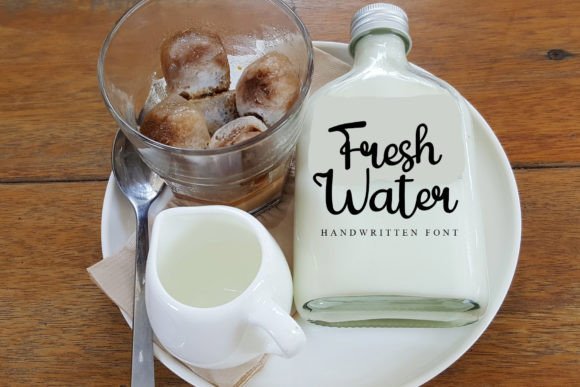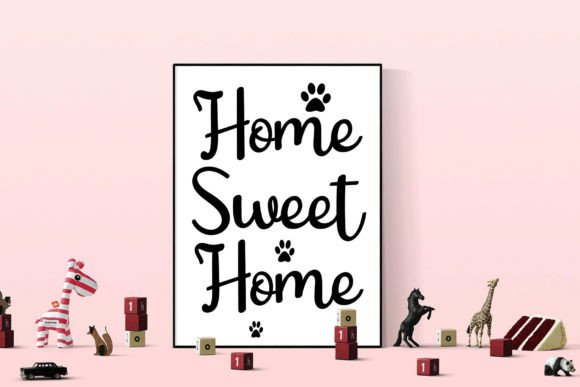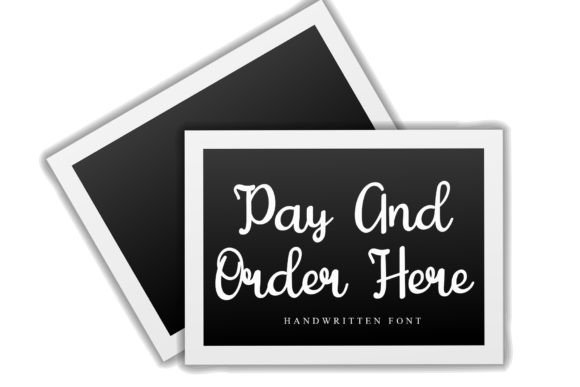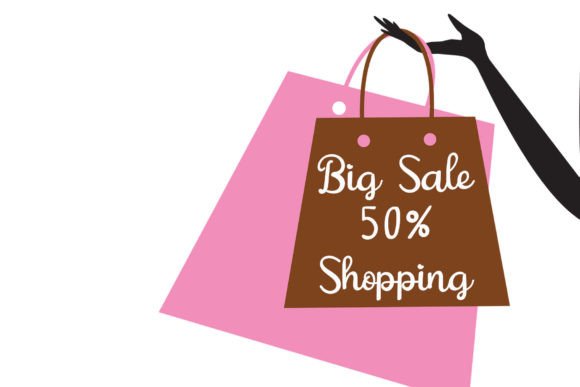
Introduction to Goots Font
Goots is a unique and elegant font.
Looks great on wedding invitations, greeting cards, billboards, logos, business cards, and any other design that requires a handwritten touch This font features a varied baseline, created with a natural, hand-made touch.
Goots Font offers exceptional quality and versatility, making it a valuable addition to your design toolkit. Whether you’re creating for personal projects or commercial use, Goots Font delivers professional results.